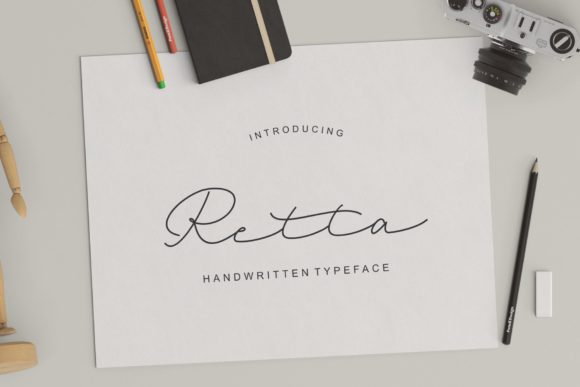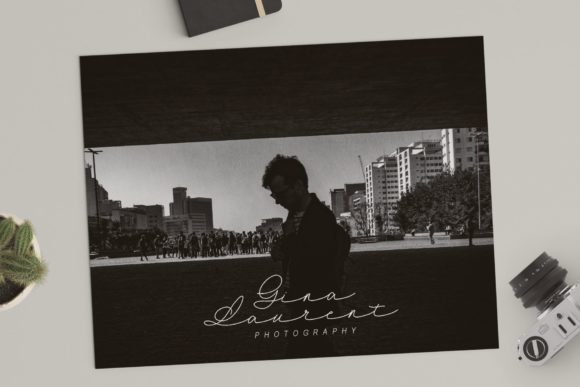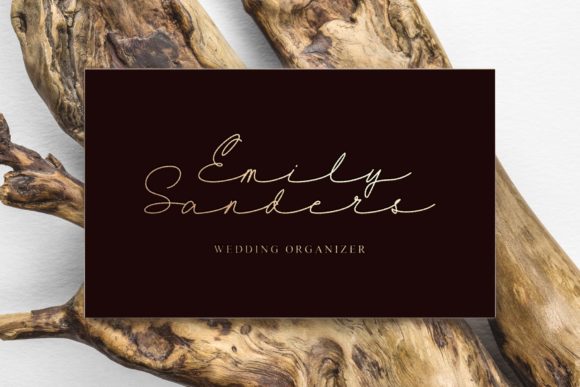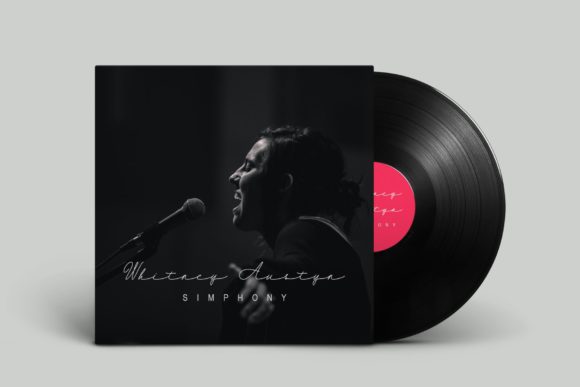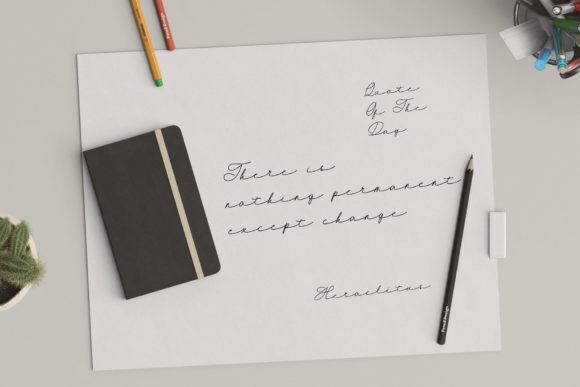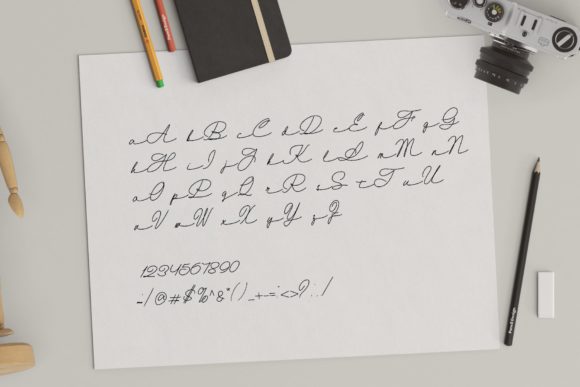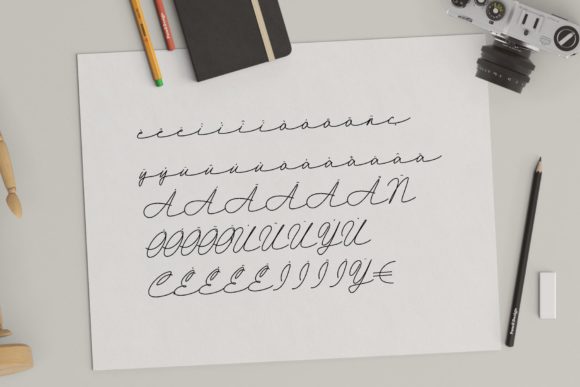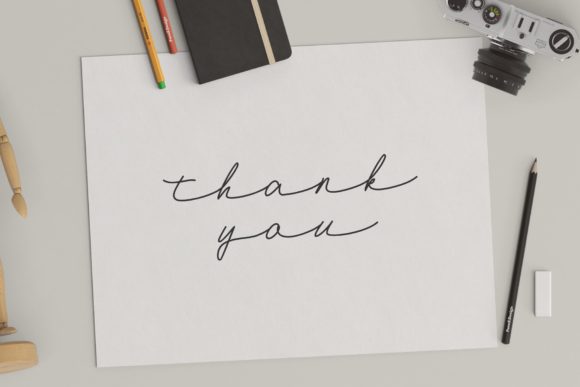
HomeScript FontsRetta Font Script Fonts Retta Font FacebookXPinterestWhatsApp Retta Font Poster 2 Retta Font Poster 3 Retta Font Poster 4 Retta Font Poster 5 Retta Font Poster 6 Retta Font Poster 7 Retta Font Poster 8 About Retta Font Retta is a handwritten typeface that appears feminine & friendly. Get inspired by its thin flowing curves! DOWNLOAD NOW People also explored Georghie Monica Font Bouquet Font Coffee and Friend Font Milde Hand Font Sweety Mom Font Spooks Font Cortese Rosemary Font Delightful Font 341 0 TagsRetta Font Previous articleGosthel FontNext articleStarlight Font LEAVE A REPLY Cancel reply Comment: Please enter your comment! Name:* Please enter your name here Email:* You have entered an incorrect email address! Please enter your email address here Website: Save my name, email, and website in this browser for the next time I comment. Personal Use Free BD Alm Personal Use Free Read more about this font Milda Personal Use Free Read more about this font Term Free Personal Use Free Read more about this font Dakwart Letter Personal Use Free Read more about this font BLOG Transform Your Website: Elevate Your Typography with 7 Best Web Font Generators Are you ready to transform your website's typography from ordinary to extraordinary? Great! Today, we're diving into the world of web font generators, which... Free vs Paid Fonts: Why Investing in Premium Fonts Is Worth It Where to Buy American Fonts Online in 2024 Using Fonts in Digital Marketing: Tips to Strengthen Your Brand Identity